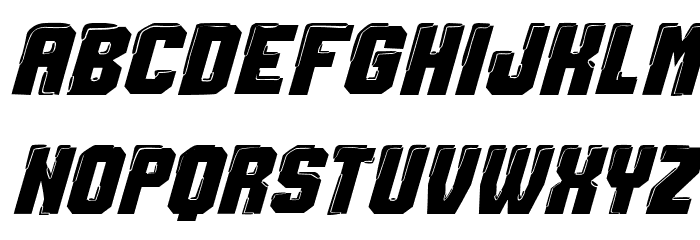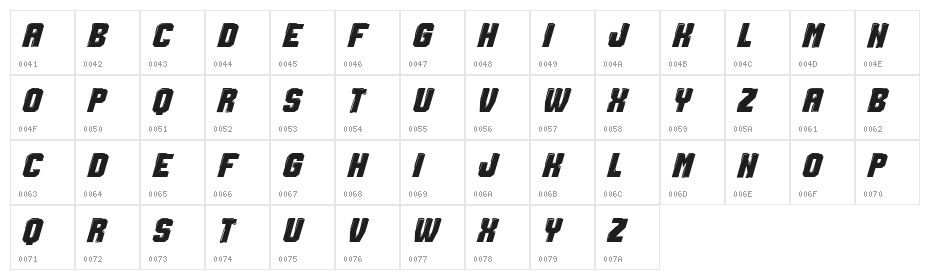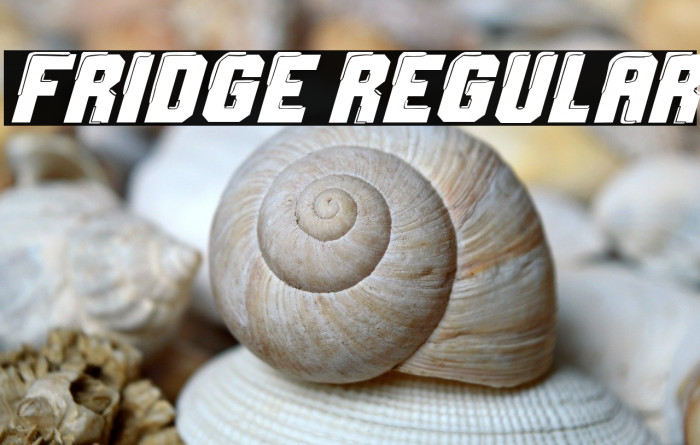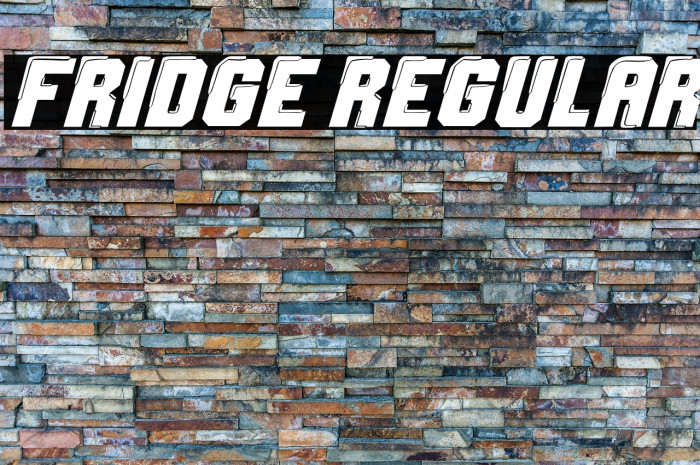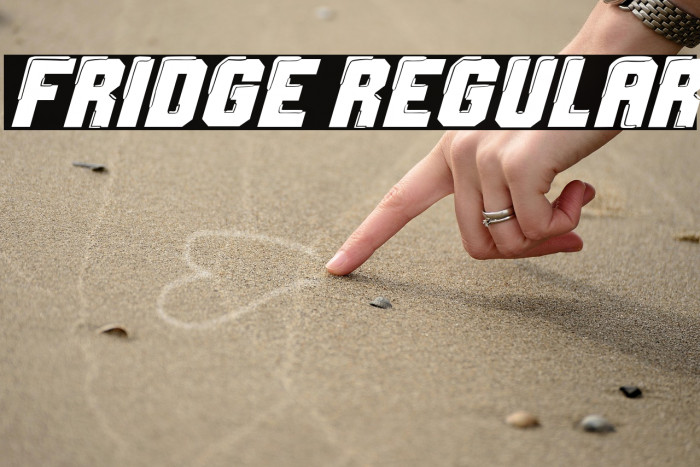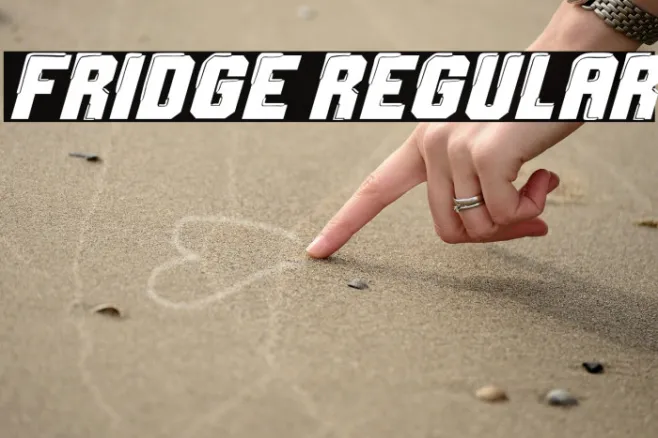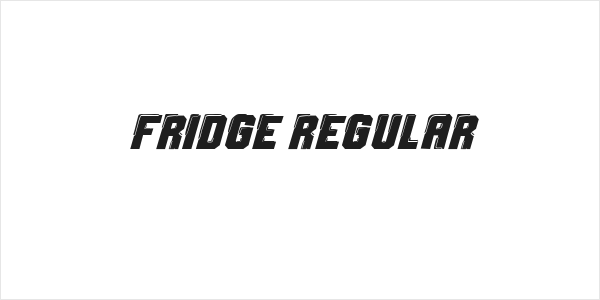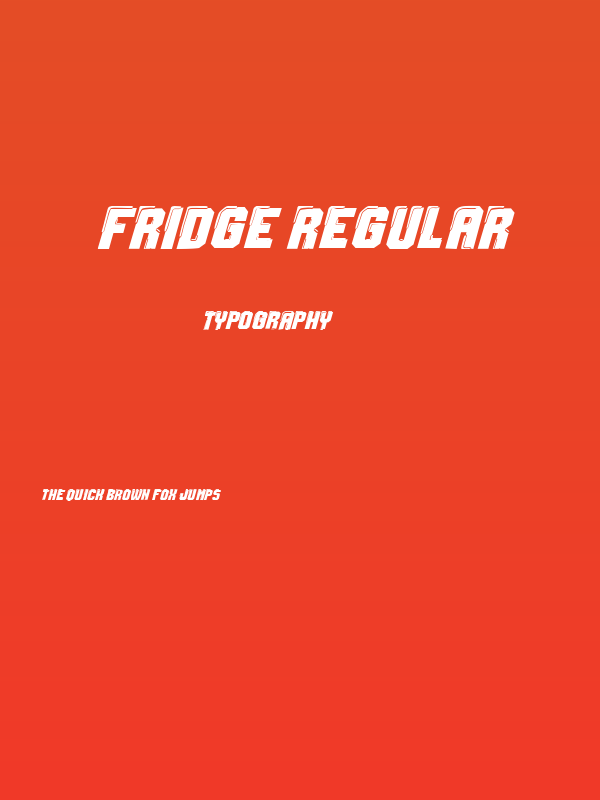
Fridge Regular Font
Fridge Regular Description
This font features a bold and dynamic style with a strong presence. The characters are designed with a slanted, italicized look, giving them a sense of motion and energy. The strokes are thick and consistent, providing a robust and impactful appearance. The edges are sharp and angular, contributing to a modern and edgy aesthetic. The font is highly legible, with clear distinctions between each character, making it suitable for attention-grabbing headlines and titles. The overall design is cohesive, with a uniform weight and width across all characters, ensuring a balanced and harmonious look.
| Proposed Projects | Ideal for sports branding, dynamic posters, and modern advertising campaigns. |